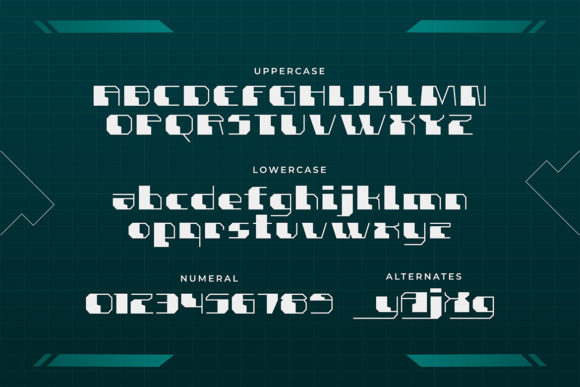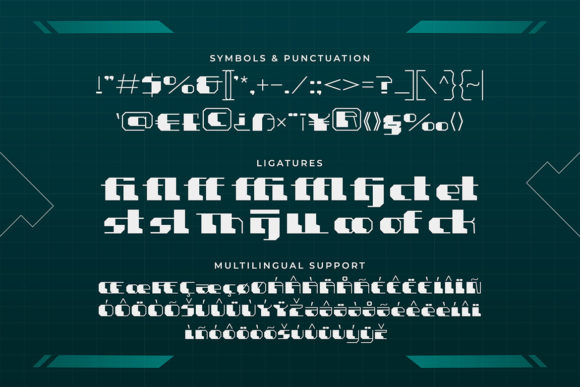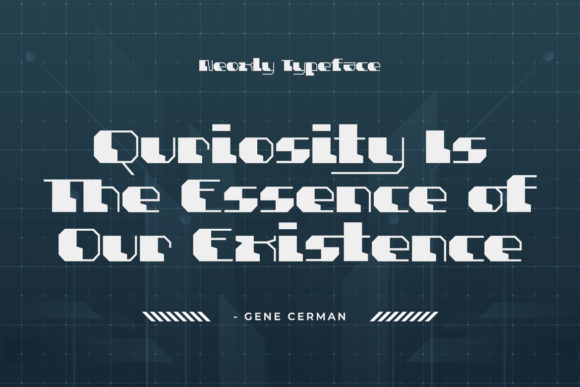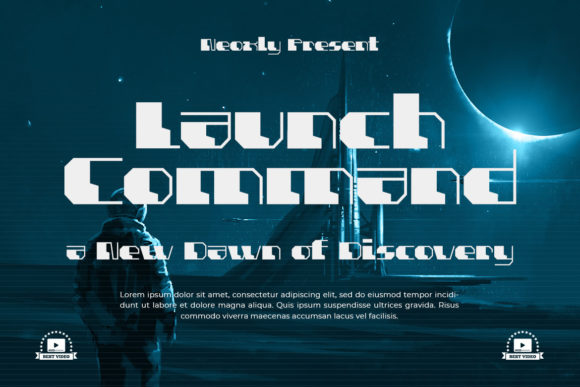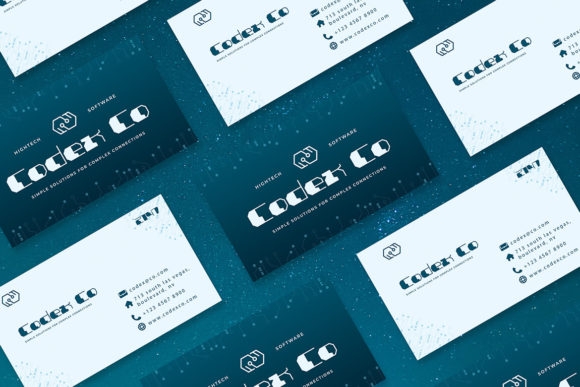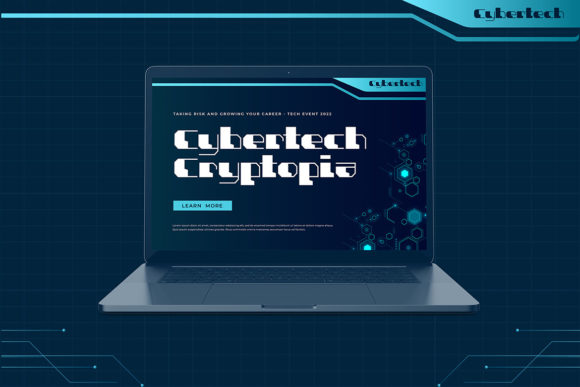
Introduction to Neoxly Font
As designers, we’ve all been there – staring at a blank canvas, trying to bring a creative project to life. The spark of inspiration hits, and suddenly, the possibilities seem endless. But what happens when you need that perfect font to elevate your design and take it to the next level? That’s where the Neoxly Font comes in – a game-changing tech-inspired font that’s about to revolutionize your design workflow.
With its futuristic feel and wide range of glyphs and ligatures, the Neoxly Font is the ultimate design resource for any tech- or computer-themed project. Whether you’re working on a futuristic website, a cutting-edge app, or a high-tech graphic design, this font is sure to make your design stand out from the crowd. And the best part? It’s available for free download, so you can start using it in your creative project right away.
Key Features of Neoxly Font
- High-quality, modern design suitable for various creative projects
- Unique, transparent background design that can be easily customized to suit your needs
- Available in a single size, making it easy to use across various applications and devices
- Designed to be highly legible at resolutions up to 300 DPI, ensuring crisp and clear text display
Honest Review: Neoxly Font
I recently came across the Neoxly Font while searching for a high-quality design resource for a creative project. I was immediately drawn to its unique and modern aesthetic, making it a great addition to any design.
Here are some things that I really like about the Neoxly Font:
- ✨ High quality: The font is crisp and clear, making it perfect for a variety of design applications.
- ✨ Customizable: The font is available in several different weights and styles, allowing for a high degree of customization.
- ⚠️ Limited language support: The font may not support certain languages or character sets, which could be a problem for designers working on projects that require these features.
- ⚠️ Transparency issues: The font’s transparent background can sometimes cause issues with background images or textures.
Overall, I’m really impressed with the Neoxly Font. While it may have some limitations, its high quality and customization options make it a great addition to any design resource collection.
Tips for Getting the Most Out of Neoxly Font
For a high-quality design, use the Neoxly Font with a transparent background to create a sleek and modern look. You can also use it as a design resource for your creative project by combining it with other fonts and graphics.